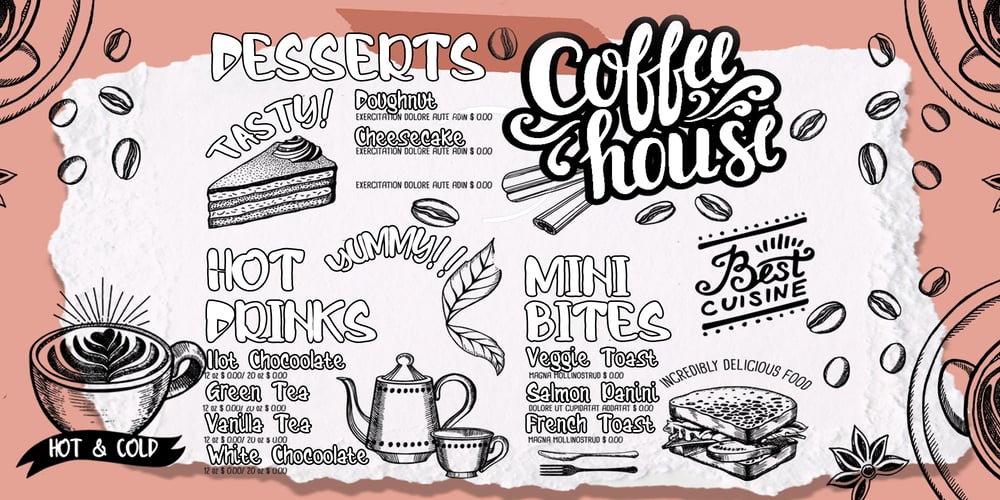
Coffeeshoot Font Family was designed by published by Ayyara Letterindo. Coffeeshoot contains 1 styles and family package options. Explore your creativity handwriting styles with the Coffeeshoot font. genuine handwriting fonts in OpenType format for Mac or PC. Fancy cursive or extrabold marker, stylish script or sassy scribbles; this Coffeeshoot font is a fun, quirky handwritten font. This playful handwritten will look so cute on your cards, invites, headlines, presentations, menus, book and any other fun projects you are working on.